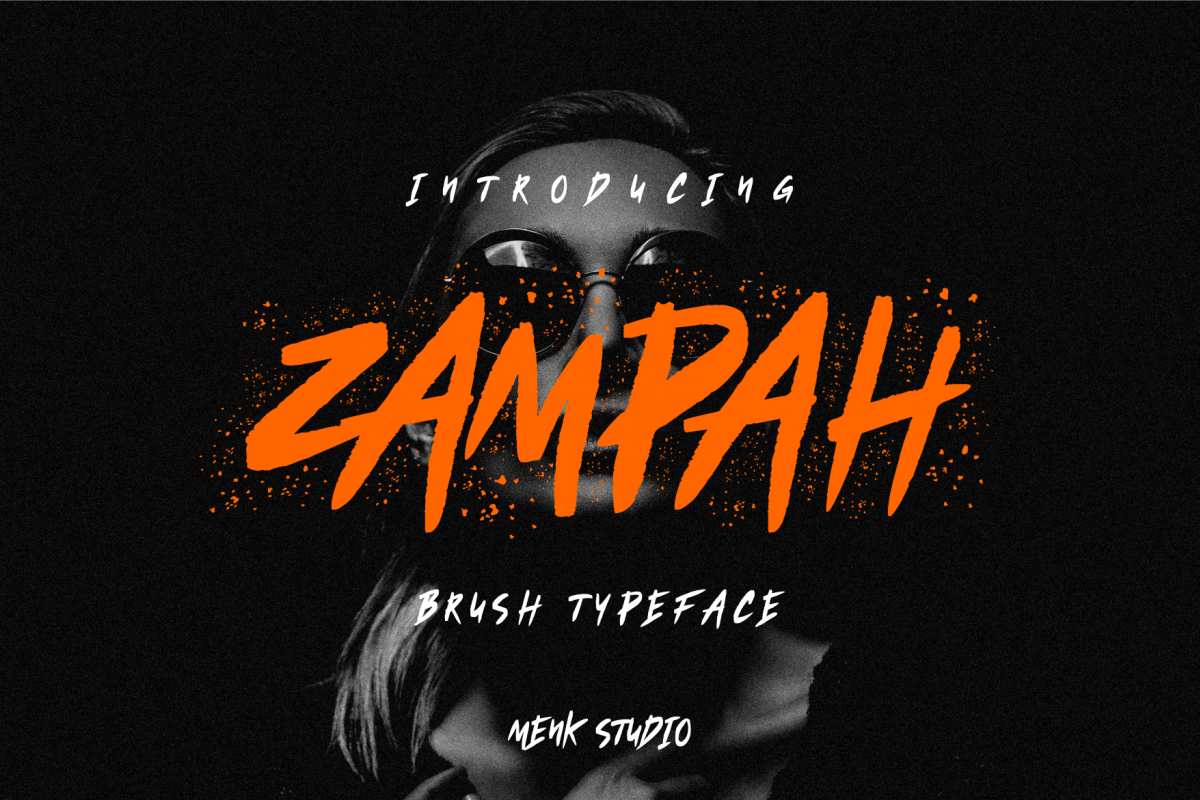
Zampah
Zampah font is handwritting brush font. This made by manual broken marker, so the brush is very natural. Zampah font is very suitable for your work (Logo, branding, clothing, poster and others )